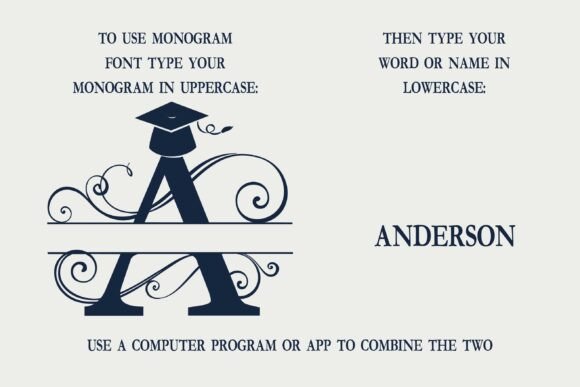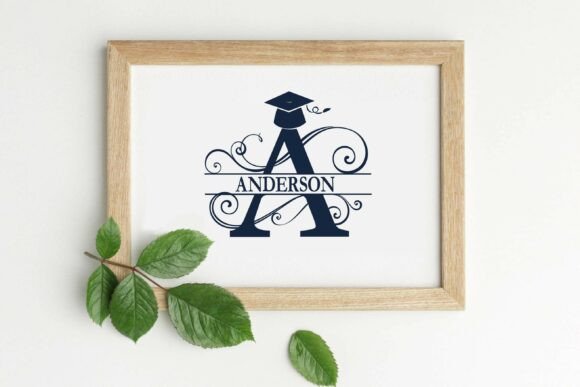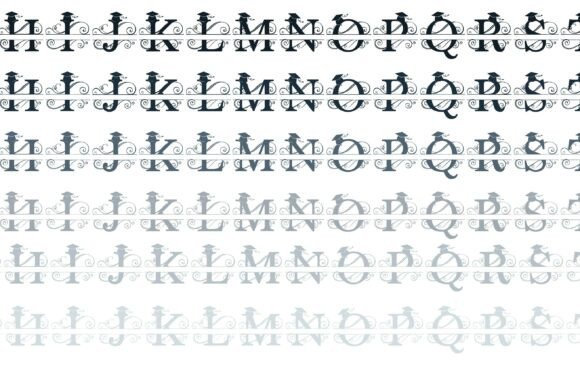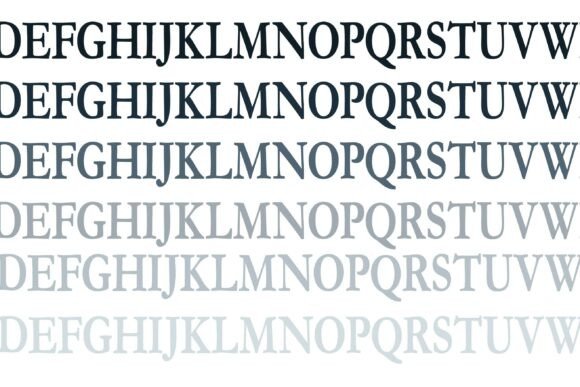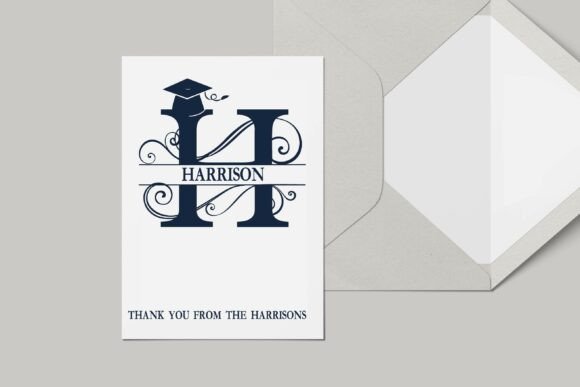
Introducing the Graduation Monogram Banner Family Font: Elevate Your Academic Milestone Celebrations
Celebrate academic achievements in style with the Graduation Monogram Banner font, a premium decorative typeface designed by Illustration Ink. This elegant split monogram font is perfect for designers, crafters, and digital artists looking to create personalized gifts, graduation party banners, and commemorative items that honor years of hard work.
A Sophisticated Split Monogram Design
The Graduation Monogram Banner font boasts a clean, classic serif foundation, split horizontally across the middle to create a perfect slot for custom text insert templates. This thoughtful design allows for effortless customization, making it easy to create high-end, personalized items that showcase your creativity and attention to detail.
Adorned with Graduation Cap Icons and Calligraphic Vine Swirls
Each capital letter in the Graduation Monogram Banner font is crowned with a beautifully balanced graduation cap icon, symbolizing academic achievement and success. Elegant, symmetrical calligraphic vine swirls wrap around the letters, adding a touch of sophistication and refinement. This exquisite design element elevates the font to a premium, high-end feel, perfect for special occasions.
Endless Creative Possibilities for Designers and Crafters
The Graduation Monogram Banner font is an exceptional asset for various creative projects, including:
- Graduation party banners and signs
- Class of keepsake frames and photo albums
- Custom foil-stamped announcements and invitations
- Senior family scrapbooks and memory books
- Engraved gifts, such as wooden plaques and crystal awards
- Varsity celebration apparel, including t-shirts and hoodies
With the Graduation Monogram Banner font, you can create stunning, one-of-a-kind items that celebrate academic milestones and leave a lasting impression.
Benefits for Digital Designers and Crafters
This split monogram font is designed with the creative professional in mind. The Graduation Monogram Banner font:
- Offers a unique and exclusive design that sets your work apart
- Provides effortless customization with built-in text insert templates
- Can be used for a wide range of creative projects, from digital designs to handmade crafts
- Is compatible with various design software and applications
Tips for Getting the Most Out of the Graduation Monogram Banner Font
To maximize the potential of this exceptional font, consider the following tips:
- Experiment with different colors and textures to add depth and visual interest
- Combine the font with other design elements, such as photos, illustrations, or graphics
- Use the font consistently across multiple projects to create a cohesive brand or theme
- Take advantage of the font’s scalability, using it for both large and small projects
The Graduation Monogram Banner font is an exceptional addition to any designer’s or crafter’s toolkit. With its elegant split monogram design, beautifully balanced graduation cap icons, and sophisticated calligraphic vine swirls, this font is perfect for creating stunning, high-end personalized gifts and celebratory items. Whether you’re a seasoned professional or just starting out, this premium decorative typeface is sure to elevate your work and leave a lasting impression.